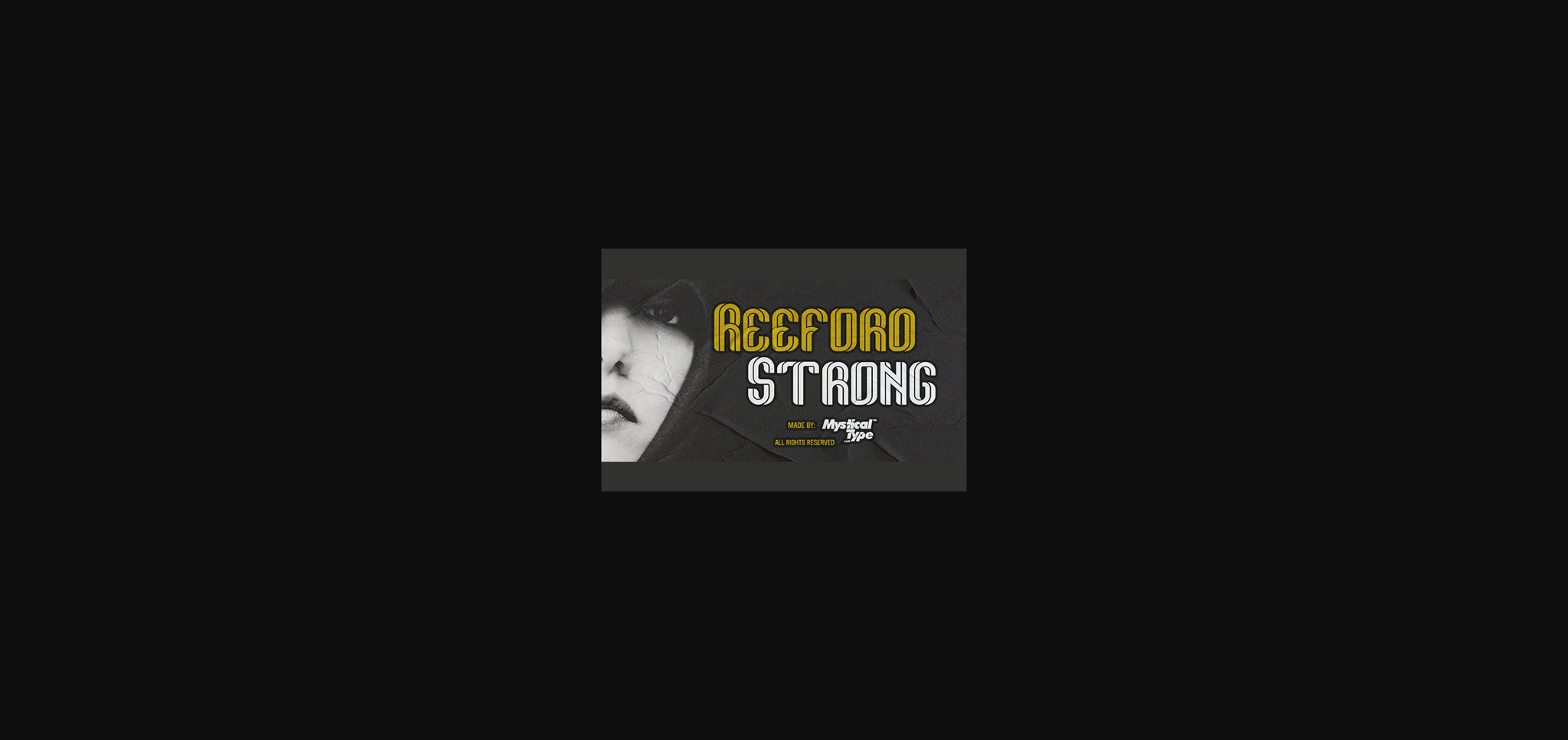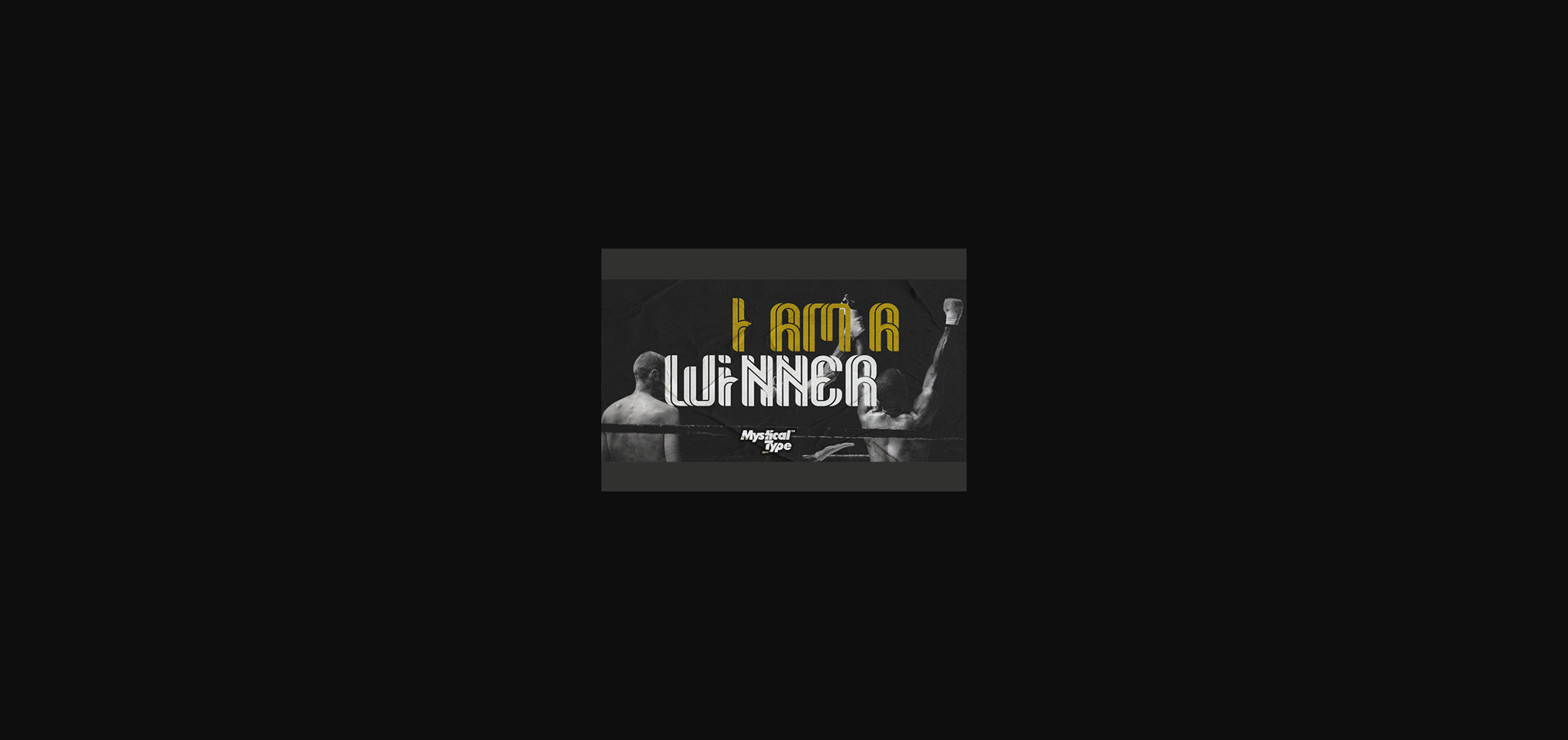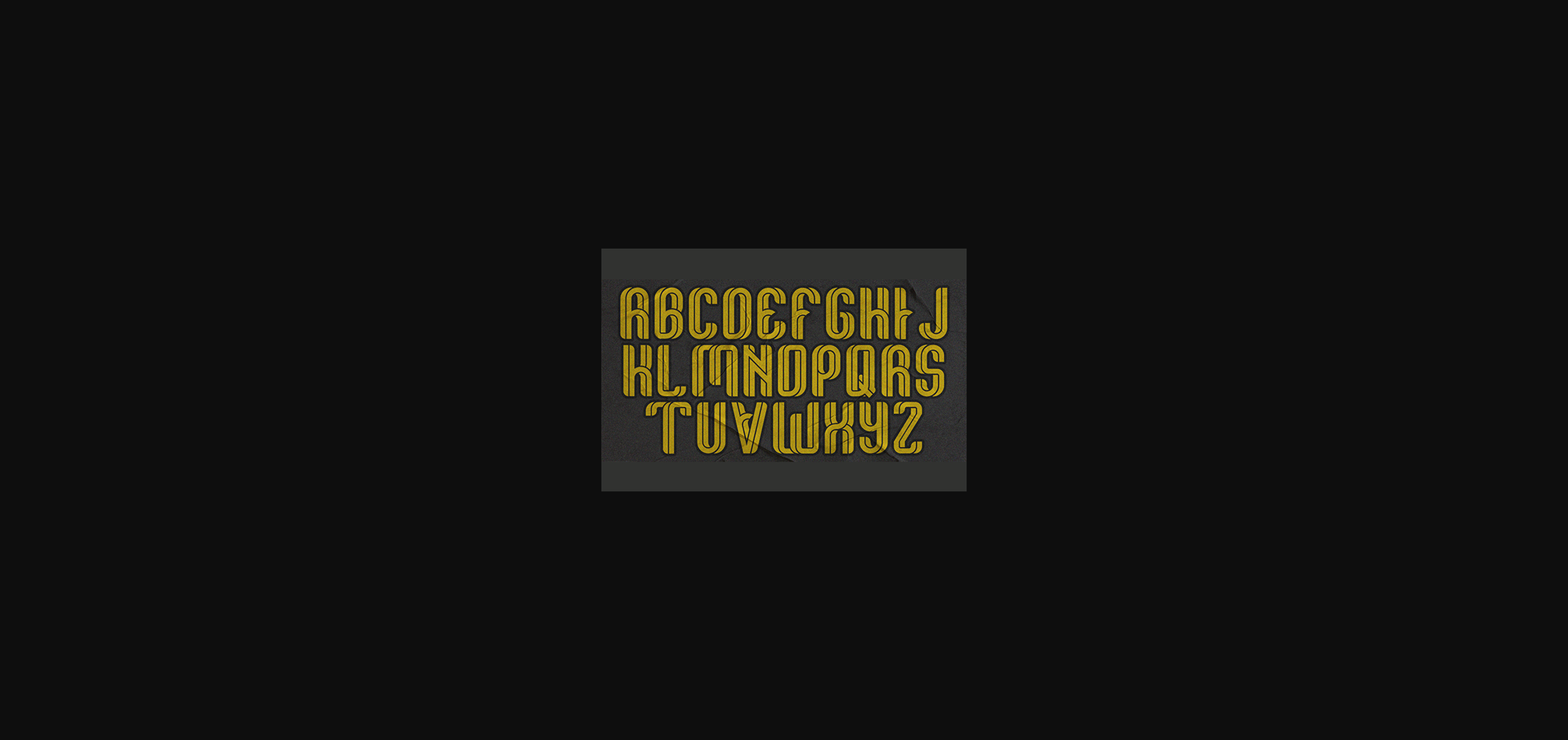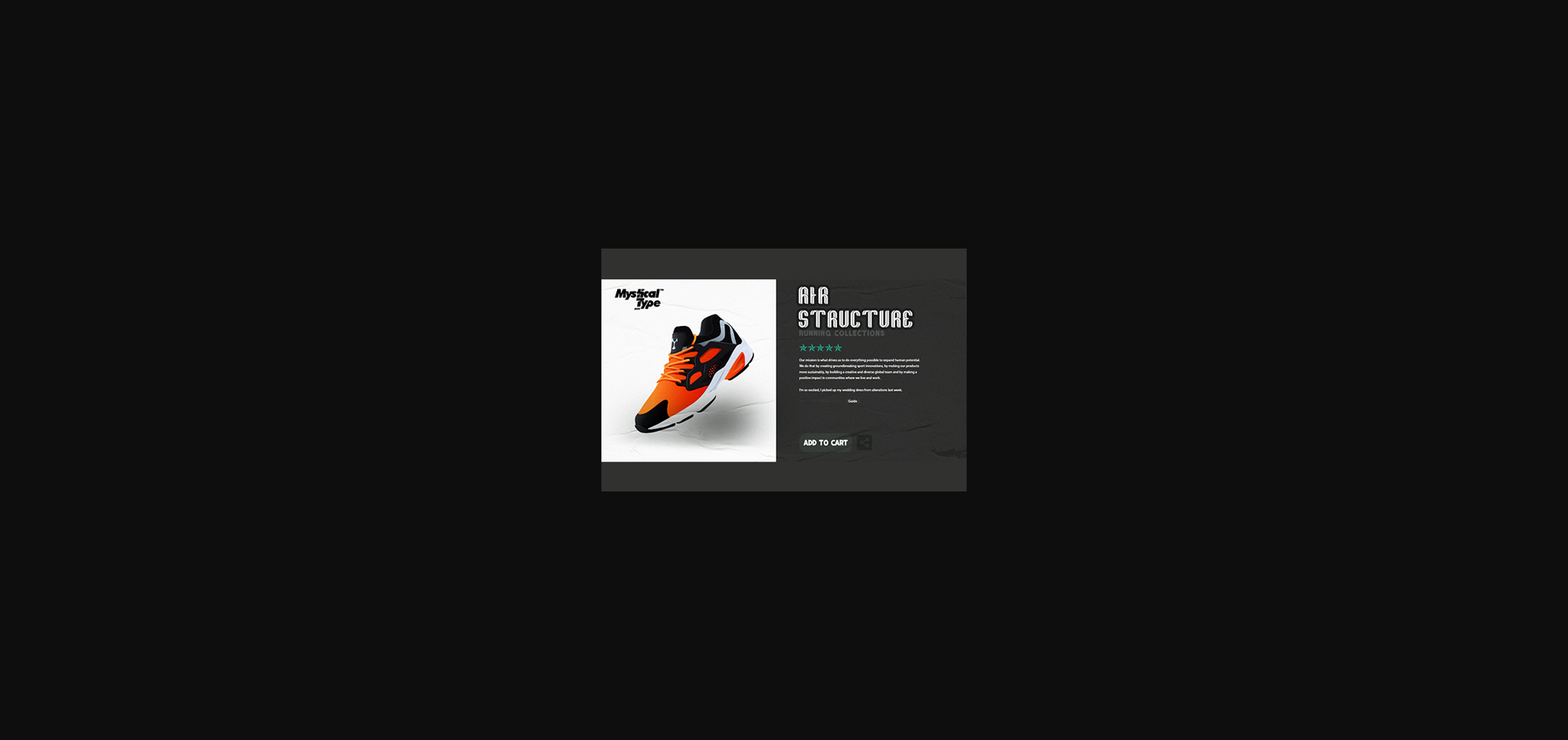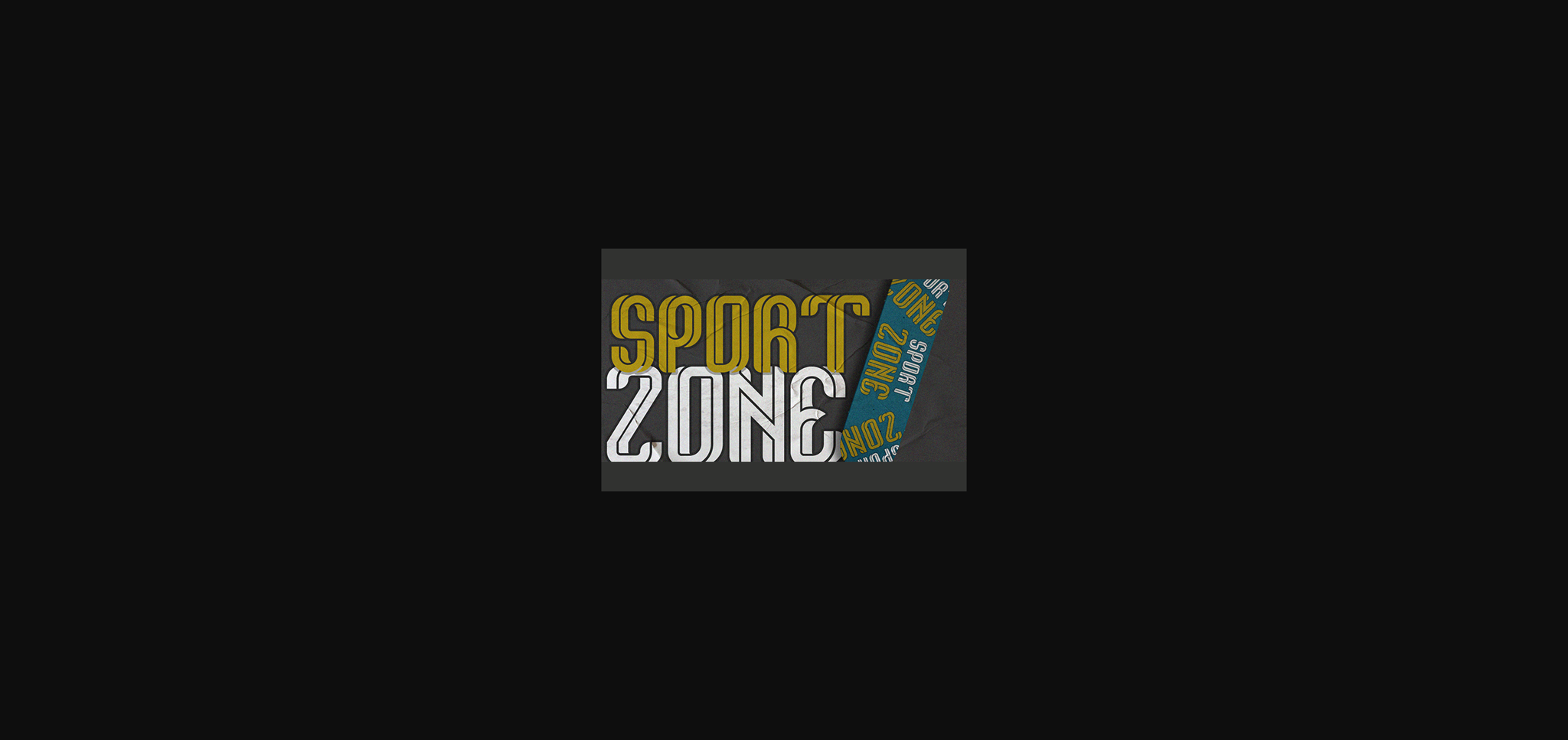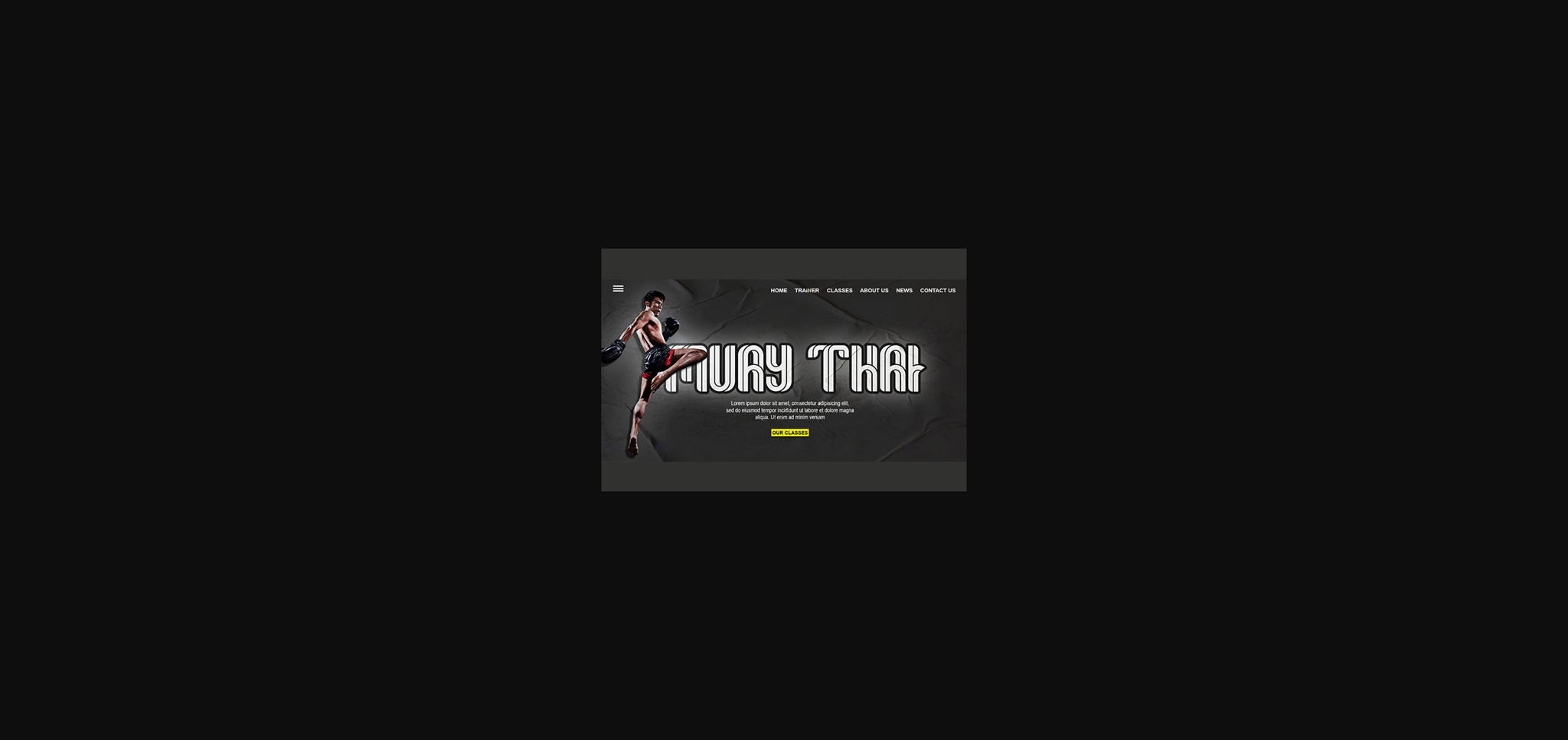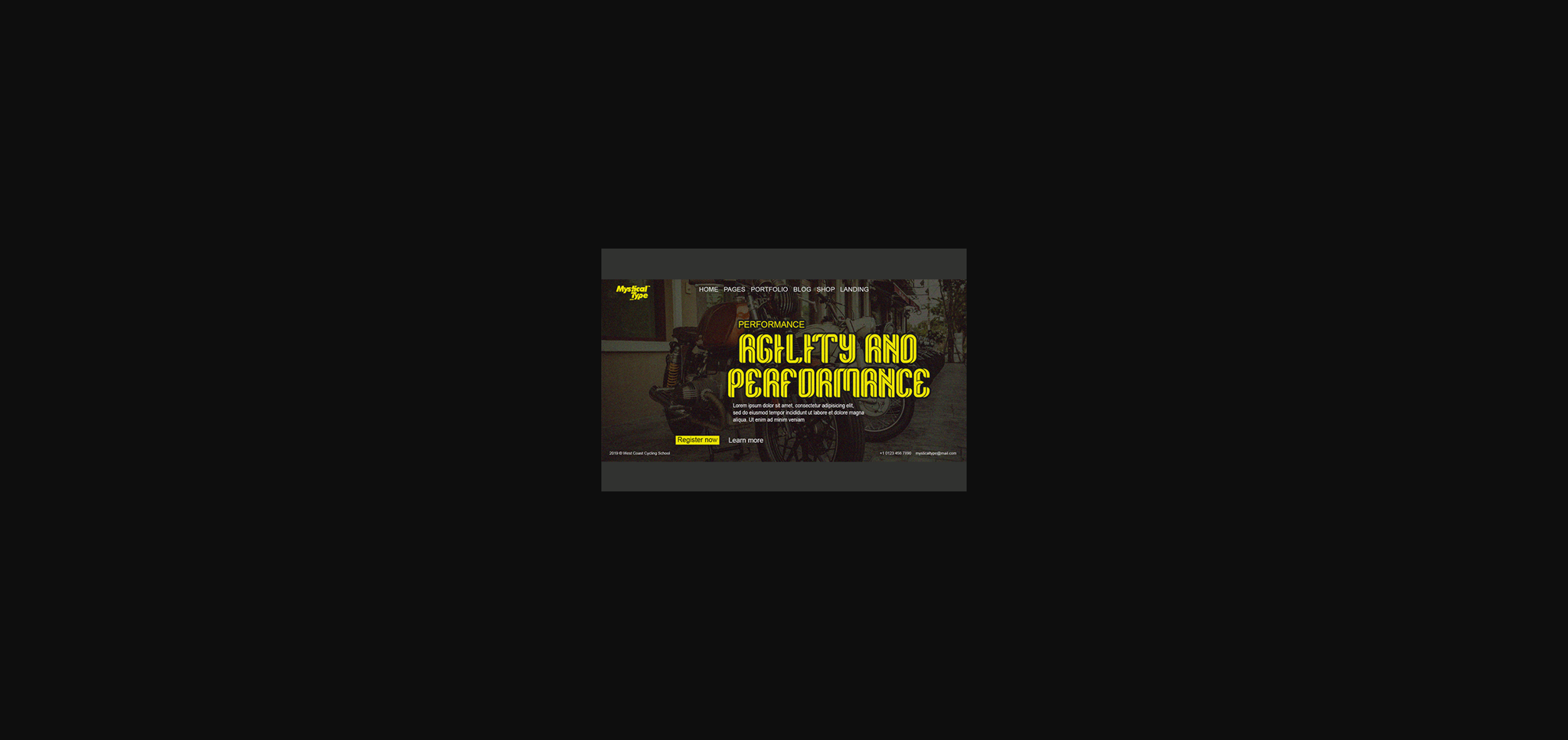
Reeford is a unique typeface with a sporty, modern and adventurous edge. This sans serif font is the perfect fit for all of your logos, branding, social media, and crafty DIY projects.